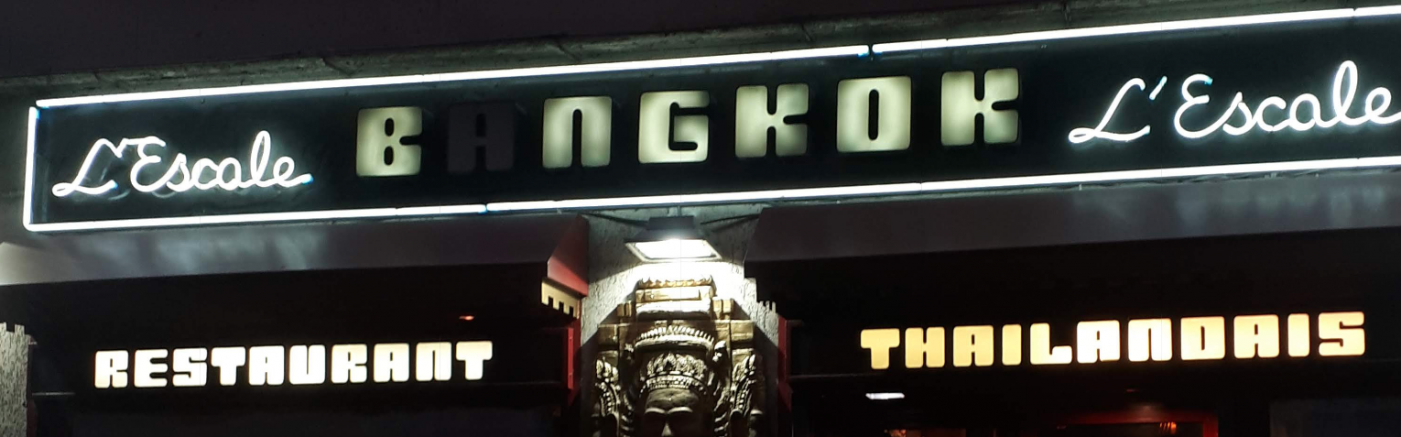
Modular blocky font on Parisian Thai restaurant sign (L'Escale Bangkok)
I'm trying to find what font this is, used for the "BANGKOK" sign, as well as RESTAURANT and THAILANDAIS.
I read on LeFly website's that it is :
"SquareWise is my interpretation of a font I found in a catalogue of dry transfer lettering from 1982. There it's called 'Square'."
and then "Note: This font was originally named "Square Peg", but I discovered there already was a commercially available font by that name (by designer Rob Leuschke)"
But I have not found either "Square Peg" or the original dry transfer lettering.
if anyone happens to know more, I'm interested !!
If anyone has a copy or image of the dry transfer, or the name of its designer, let me know!
That was clear from the link already provided by Kevin. The follow-up was to know more about the original design.